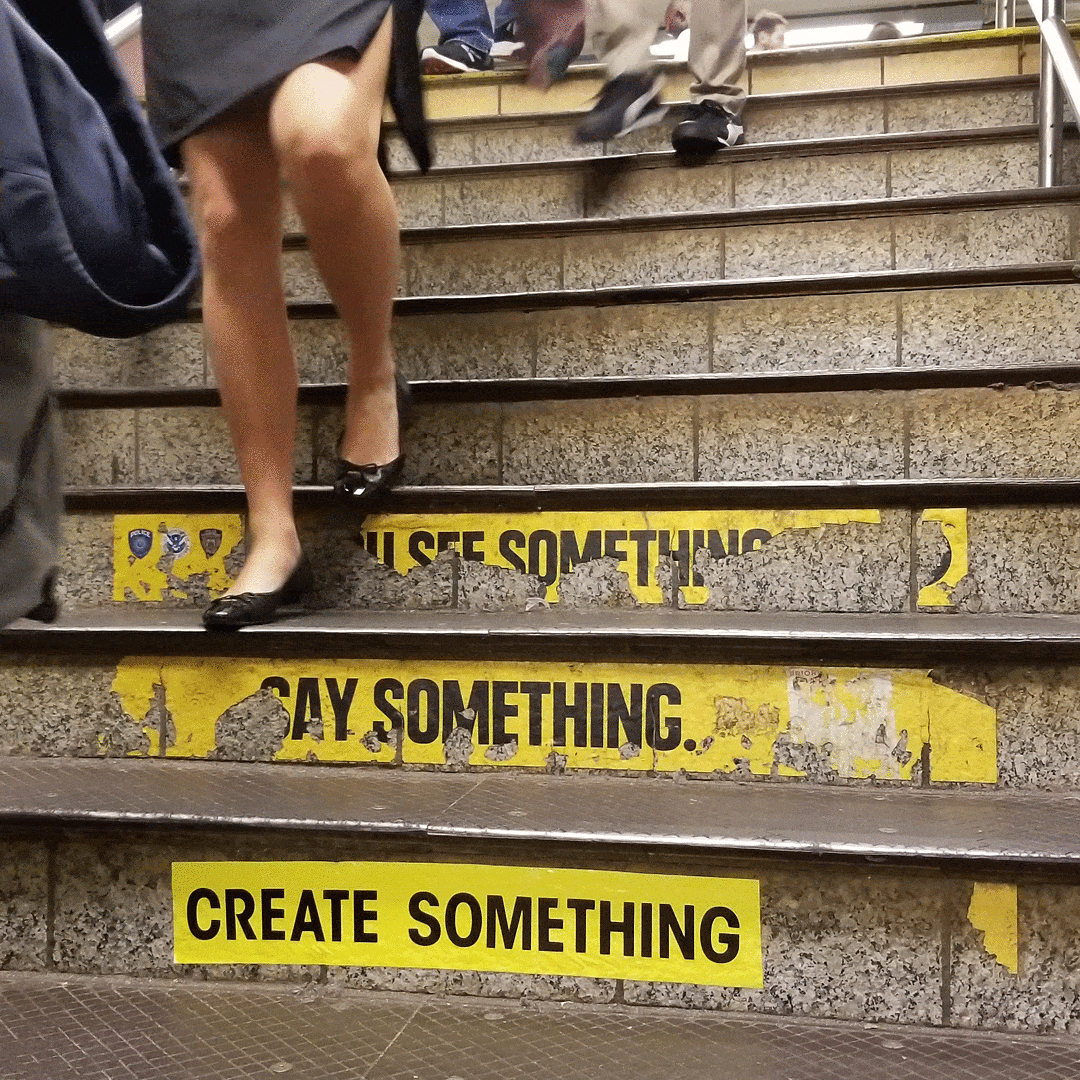
Alphabet City: Adrian Wilson
Adrian Wilson combines typography and wordplay to anonymously transform New York’s street and subway signage.
Adrian Wilson will describe how has been combining typography and wordplay to anonymously transform New York’s street and subway signage into world famous tributes, from David Bowery to Aretha Franklin Avenue.
Wilson’s father and two older brothers were all renowned graphic designers in Manchester, England. Wilson chose to be a photographer instead and, despite amassing a unique vintage typography collection, spent 50 years avoiding the inevitability of his DNA. Text based street art was his anonymous release and after revealing his identity last year, he is now the most famous graphic designer of the Wilson family.